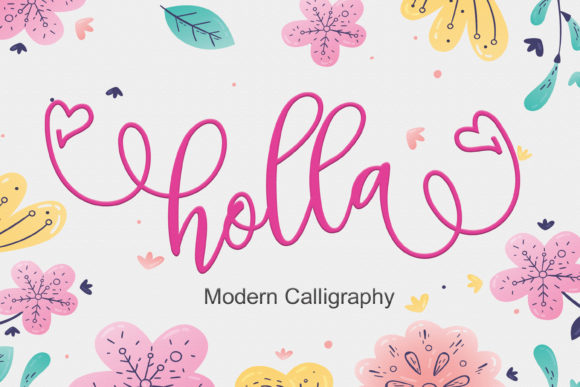
In a world of digital communication, where words dance across screens, we present Holla, a script font family that's not just a collection of letters, but an expression of art. This exceptional creation by ejhaa embodies the essence of elegance and charm, paying homage to the timeless beauty of calligraphy. As you explore the depths of Holla's characters, you'll be captivated by its varying baseline, smooth lines, and stunning alternates, each stroke painting a picture of sophistication and grace.
Imagine crafting invitations that exude an air of exclusivity, where the words themselves seem to whisper promises of joy and celebration. With Holla, your invitations transcend mere pieces of paper; they become cherished keepsakes, reflecting the significance of the occasion they announce. As your guests gaze upon the meticulously penned words, they'll feel a sense of anticipation, eager to witness the unfolding of a truly special event.
Beyond invitations, Holla's versatility knows no bounds. Let your creativity soar as you explore its potential in wedding stationery, branding projects, social media graphics, and countless other design endeavors. Its elegant strokes add a touch of refinement to logos, posters, and flyers, capturing attention and leaving a lasting impression. Holla is not just a font; it's an artistic journey that invites you to create visual masterpieces that resonate with your audience.
In a world clamoring for attention, Holla stands out as a beacon of timeless elegance. Its graceful curves and delicate flourishes evoke a sense of nostalgia, while its contemporary charm ensures that it remains relevant in the modern digital landscape. With Holla, you have the power to transform ordinary words into extraordinary expressions, leaving an indelible mark on the hearts of your readers.
So, embark on this creative adventure with Holla, a font family that transcends the boundaries of ordinary typography. Let your imagination run wild as you discover the endless possibilities that await you. With Holla, every word you write becomes a testament to your discerning taste and appreciation for the finer things in life.